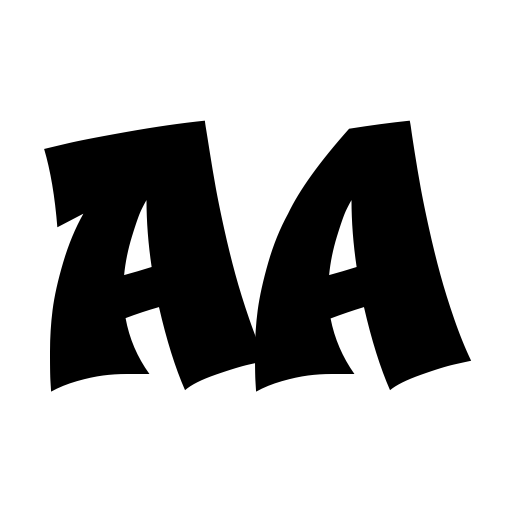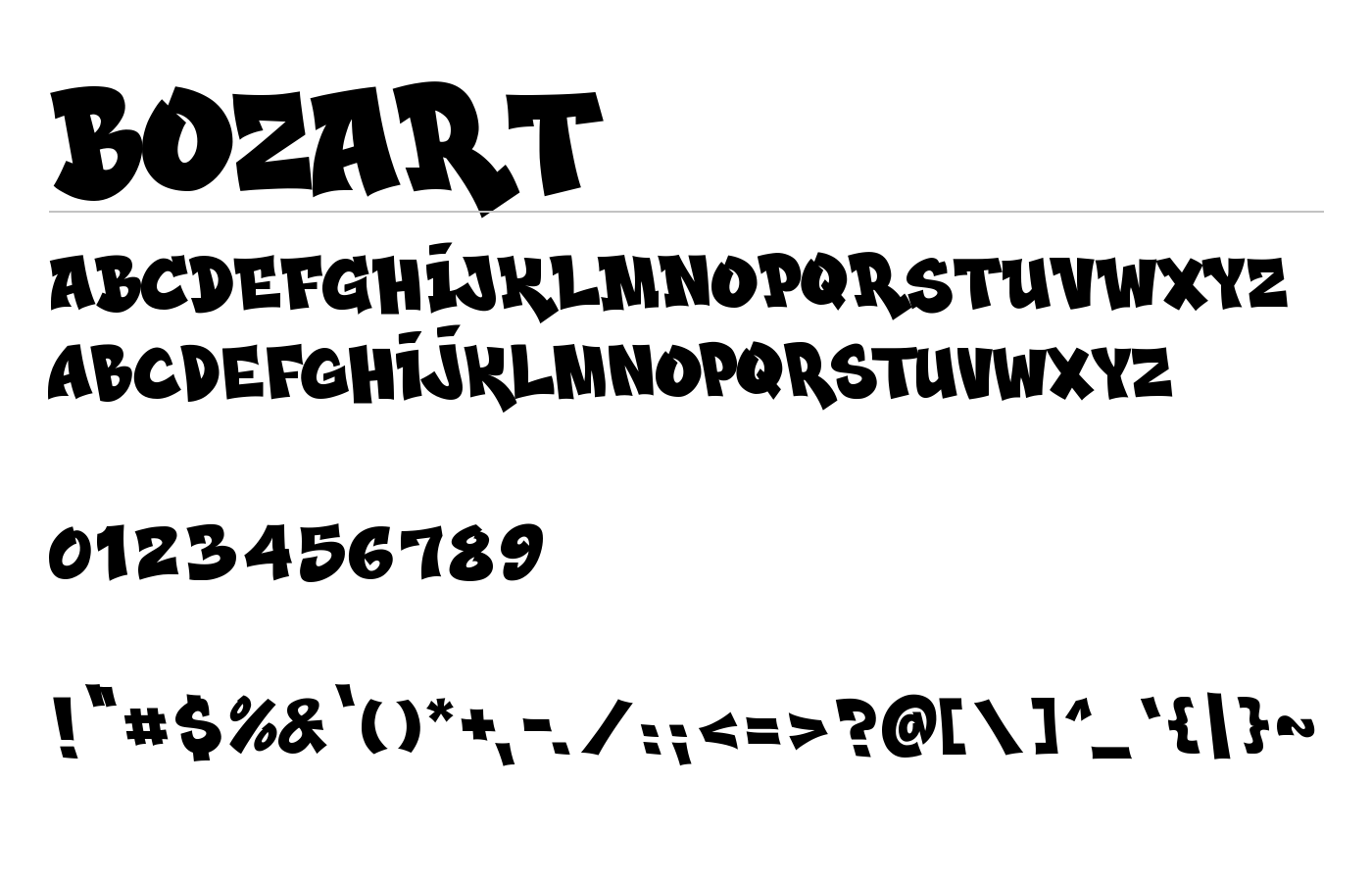
BOZART is a bold, playful display font with strong, irregular shapes that give it a fun and energetic personality. Its chunky, slightly distorted letters create an informal, cartoon-like vibe perfect for eye-catching headlines, posters, or branding that needs a quirky, expressive touch. This font works best where a lively, unconventional style is desired to stand out and grab attention.
BOZART Font
About BOZART Font
| Font family | BOZART Font |
| Designer | Sahirul Puguh |